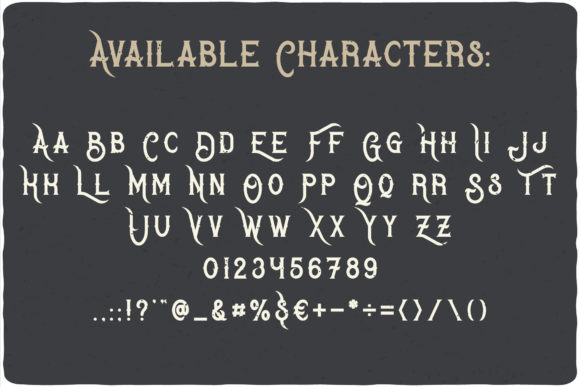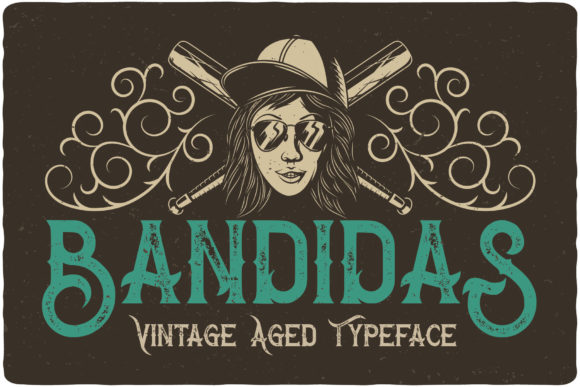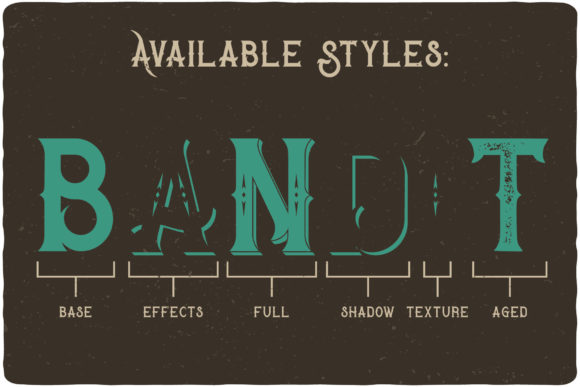
Bandidas Font: A Bold Vintage Display Font for Unique Logo Design
About the Bandidas Font
We are excited to introduce Bandidas Font, a must-have typeface for any serious designer. Bandidas is a cool, assertive and bold display font. It looks beautiful on a variety of designs requiring a personalized style, such as wedding invitations, thank you cards, weddings, greeting cards, logos and so on.
Bandidas Font Usage Examples
Bandidas Font Example